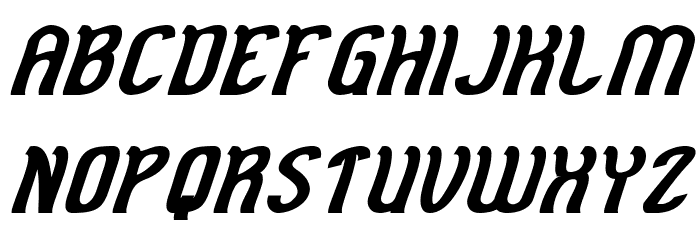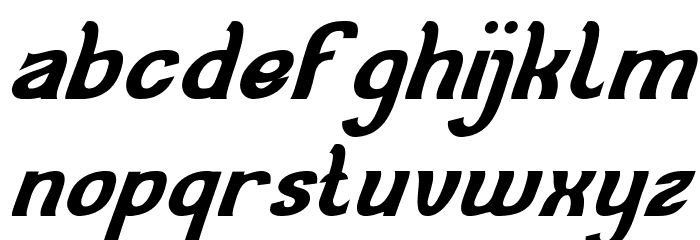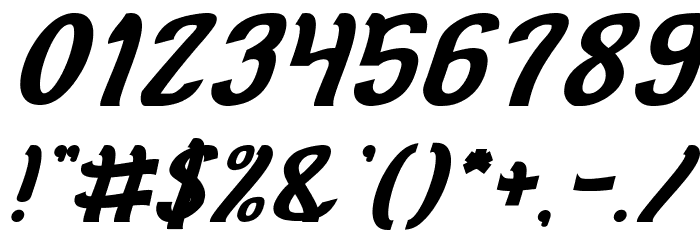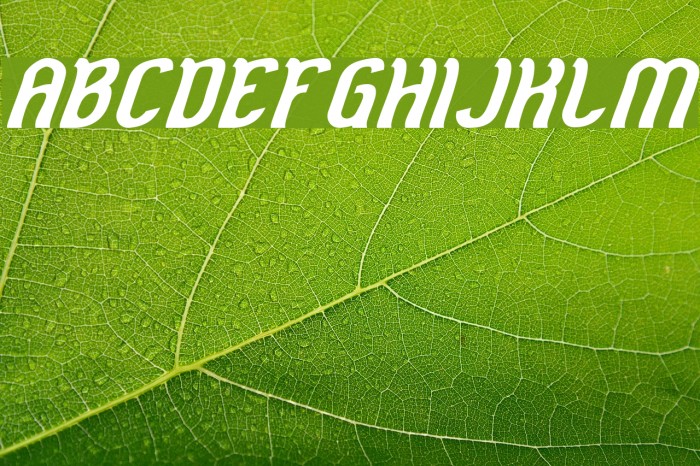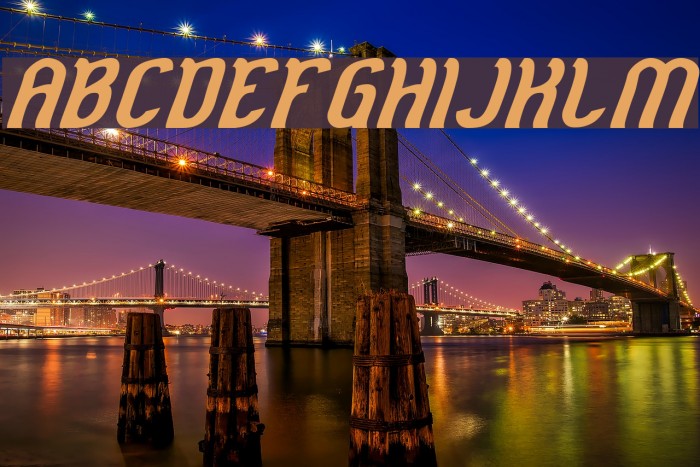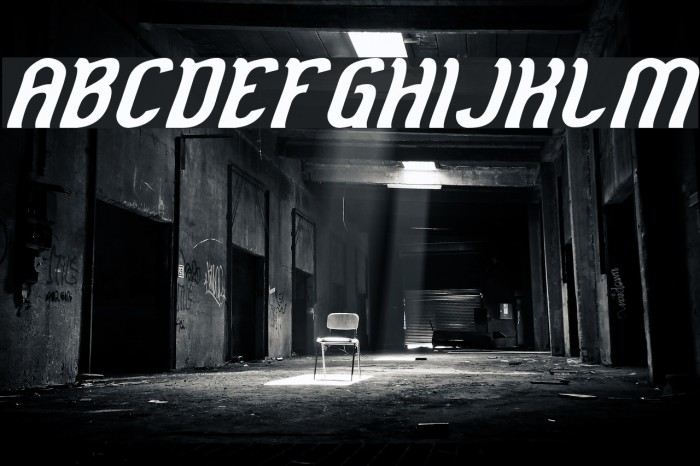
Cat Eyes Bold Italic Font
This font exhibits a bold and italicized style with a distinctive flair, characterized by its slanted and dynamic letterforms. The uppercase and lowercase letters maintain a consistent boldness, providing a strong visual impact. The numerals are equally bold, ensuring readability and uniformity across different uses. Special characters are designed with the same bold and italicized features, making them stand out effectively. The overall design is both modern and playful, suitable for projects that require a touch of creativity and emphasis.
A bold, italicized font with dynamic and playful letterforms.
- Proposed Projects: Ideal for branding, headlines, posters, and creative design projects that require a bold statement.